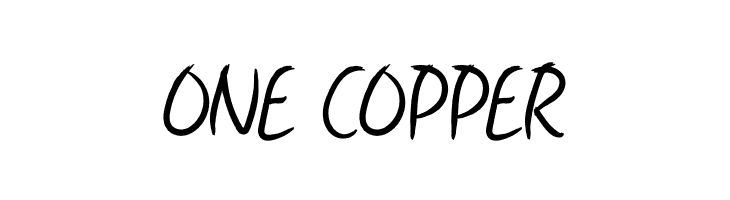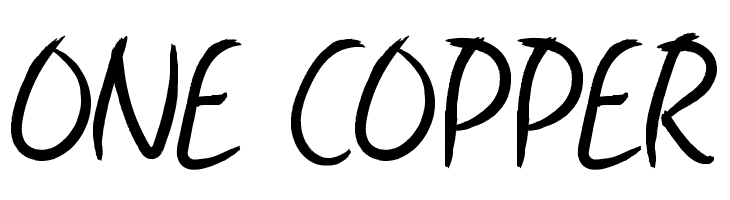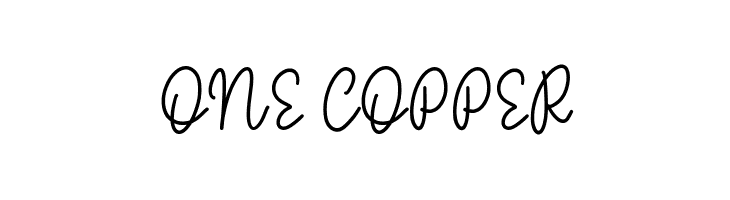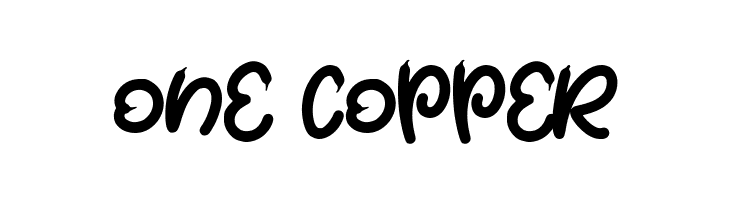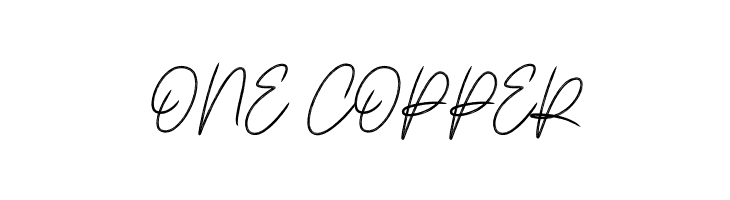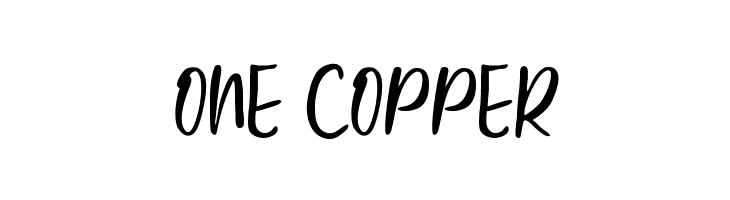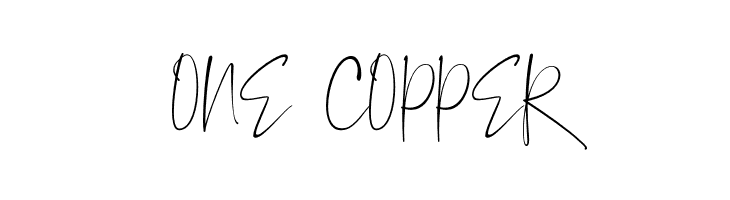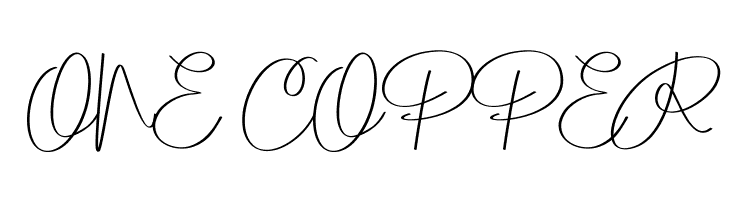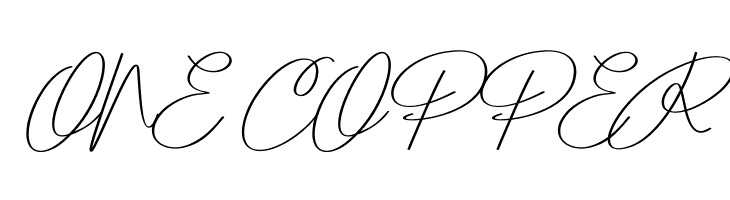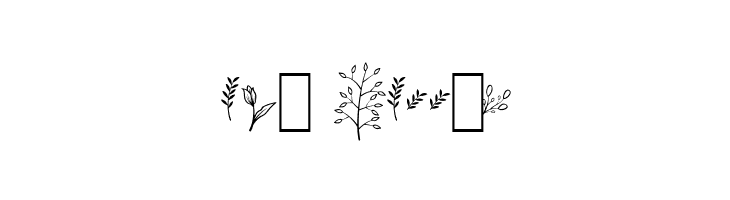
A casual, elegant handwritten script with fluid, interconnected letters.
An elegant, flowing script font with thin, elongated strokes and graceful curves.
A bold, modern font with thick, uniform strokes for impactful design.
A dynamic and elegant script font with flowing, slender letterforms.
A bold, playful font with thick, rounded strokes and a bubbly appearance.
A bold, playful handwritten font with rounded, irregular letterforms.
A dynamic, modern font with elongated, slanted characters and a bold presence.
A dynamic, handwritten-style font with a playful and energetic character.
A lively handwritten font with fluid strokes and dynamic character.
A dynamic handwritten font with fluid, expressive strokes and a playful style.
A bold, playful handwritten font with fluid strokes and a modern feel.
A dynamic handwritten font with fluid strokes and a casual elegance.
A bold, handwritten font with dynamic and fluid characters.
A playful, handwritten script font with dynamic, flowing lines.
A bold, playful handwritten font with dynamic and flowing letterforms.
A bold, expressive handwritten font with dynamic strokes and a playful style.
A bold, expressive handwritten font with fluid strokes and a playful style.
An elegant, flowing script font with interconnected letterforms and artistic curves.
Delicate hand-drawn botanical and floral illustration set.
A flowing, cursive script font with elegant, connected characters.
A bold, expressive handwritten font with dynamic strokes and fluid forms.
A playful, casual handwritten font with smooth, flowing lines and a dynamic feel.
A playful, handwritten font with a whimsical and artistic style.
A bold, outlined font with a playful, retro style.
A bold, angular font with a modern, edgy style.
A playful, balloon-like font with rounded characters and a whimsical style.
A bold, expressive brush-style font with a dynamic, artistic flair.
A bold, playful script font with smooth, flowing curves and a handwritten style.
A playful, rounded, and bold font with a friendly and modern appearance.
A playful, rounded font with a bold and friendly appearance.
A bold, rounded font with a playful and friendly appearance.
A playful, rounded font with a bold and friendly appearance.